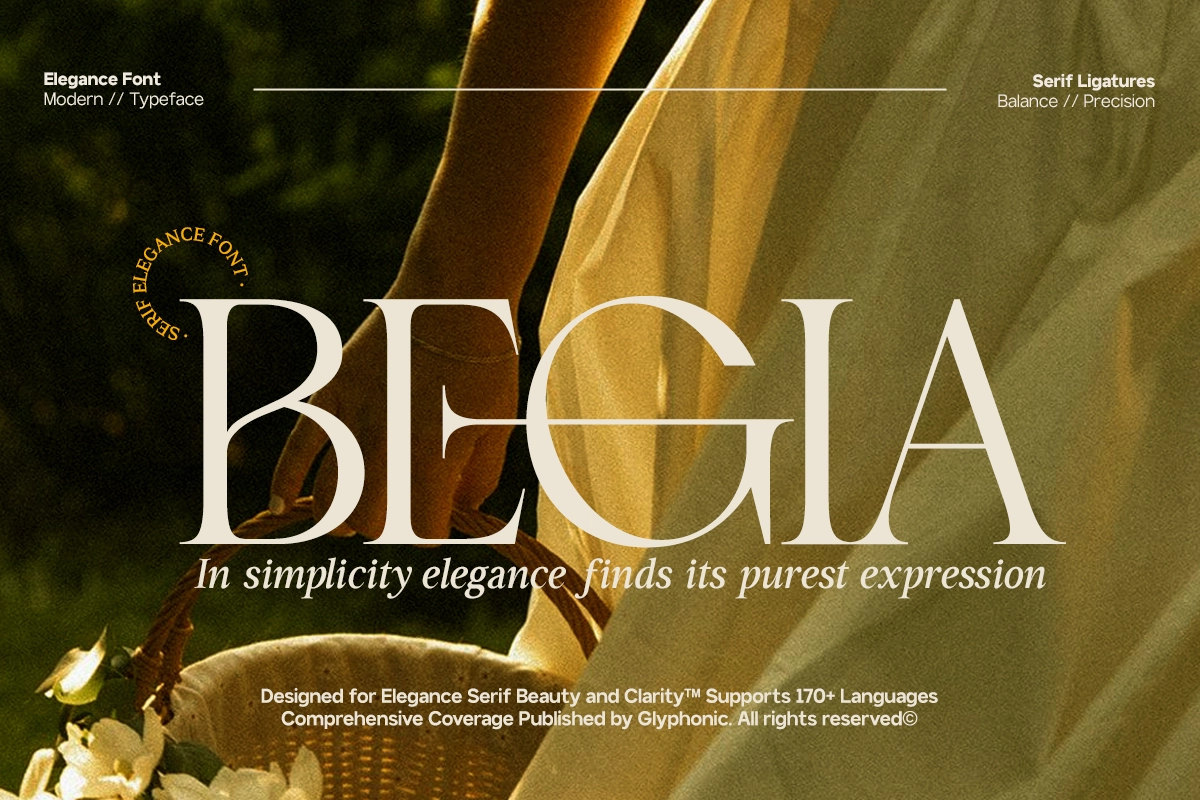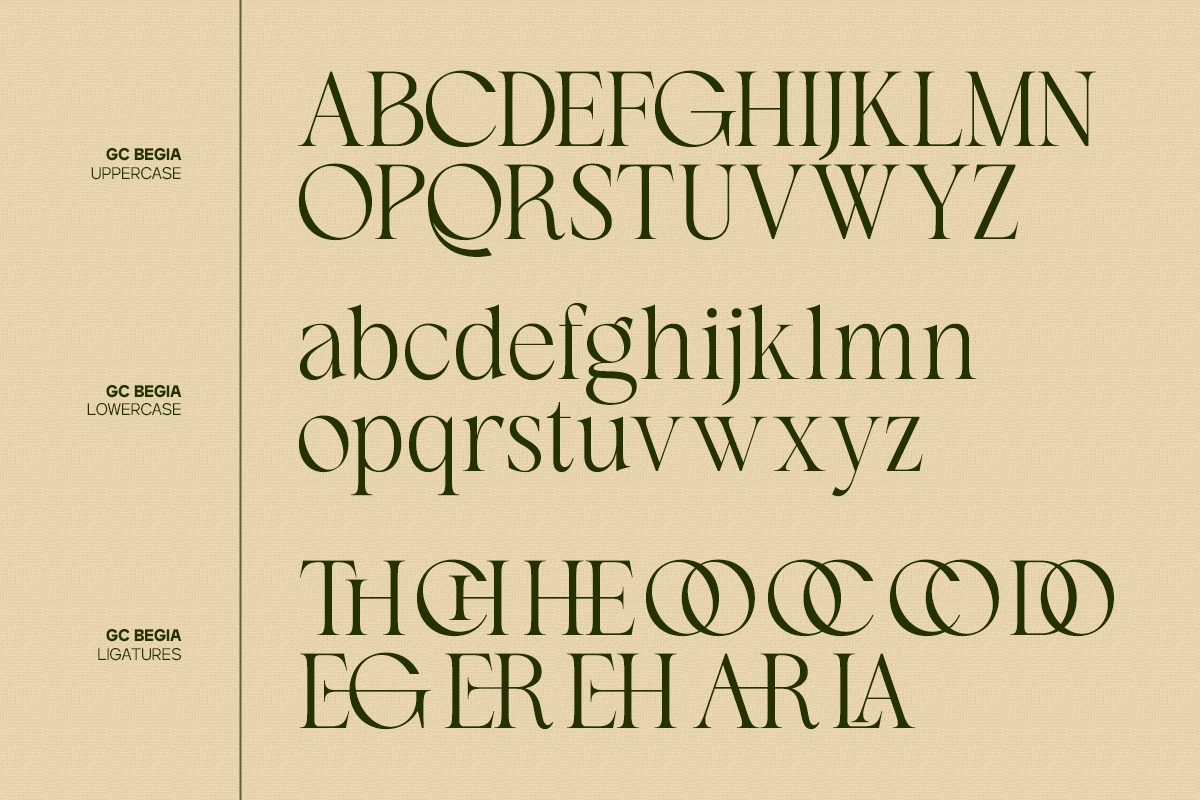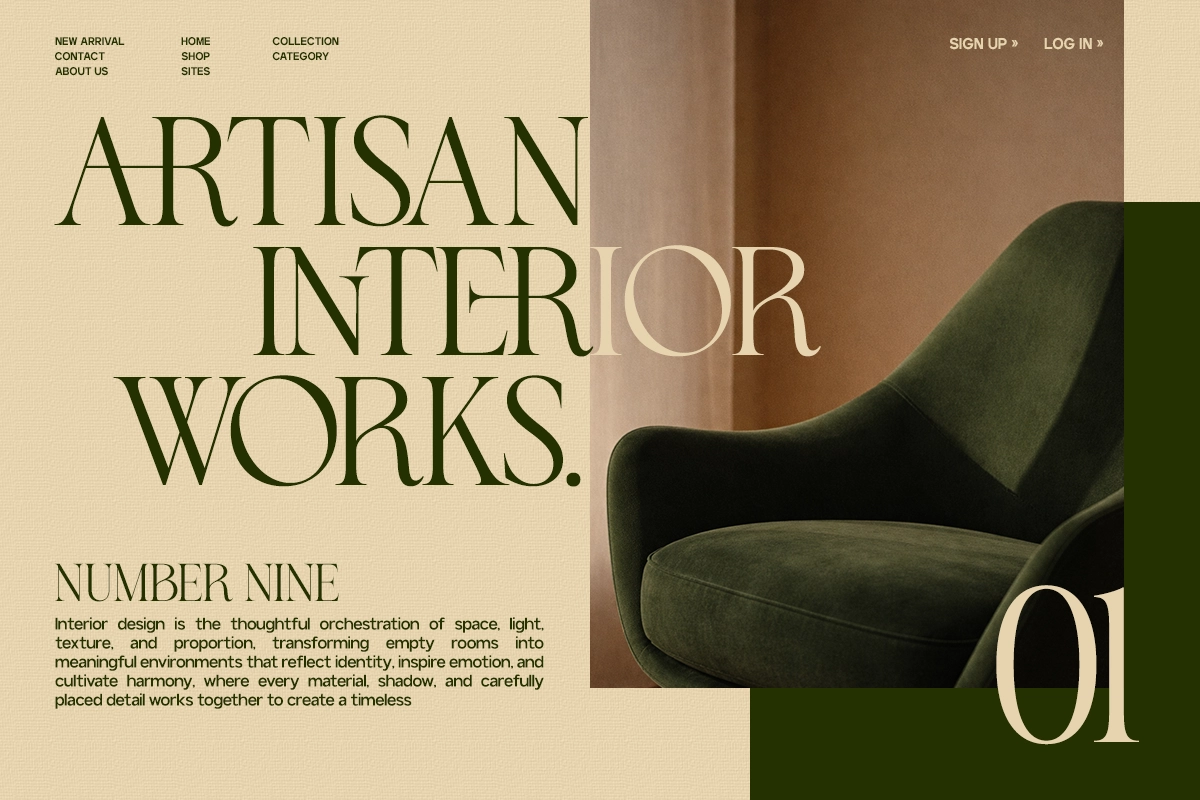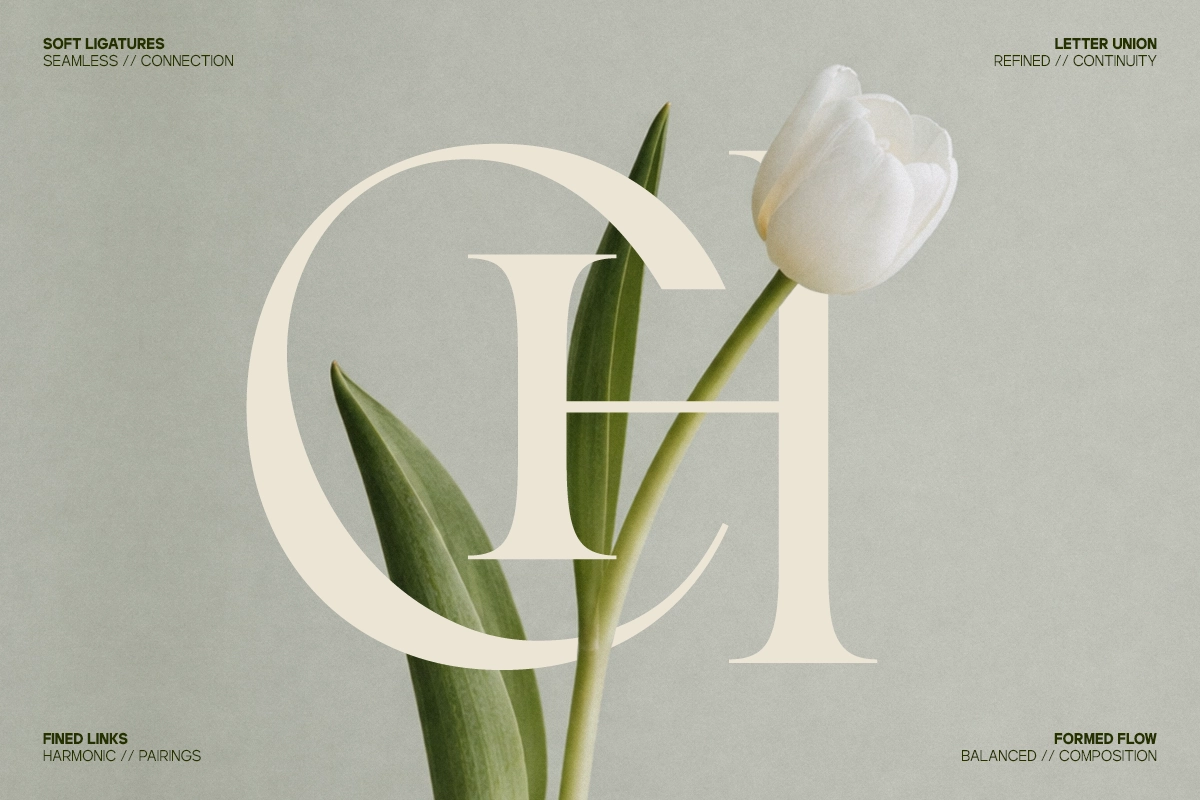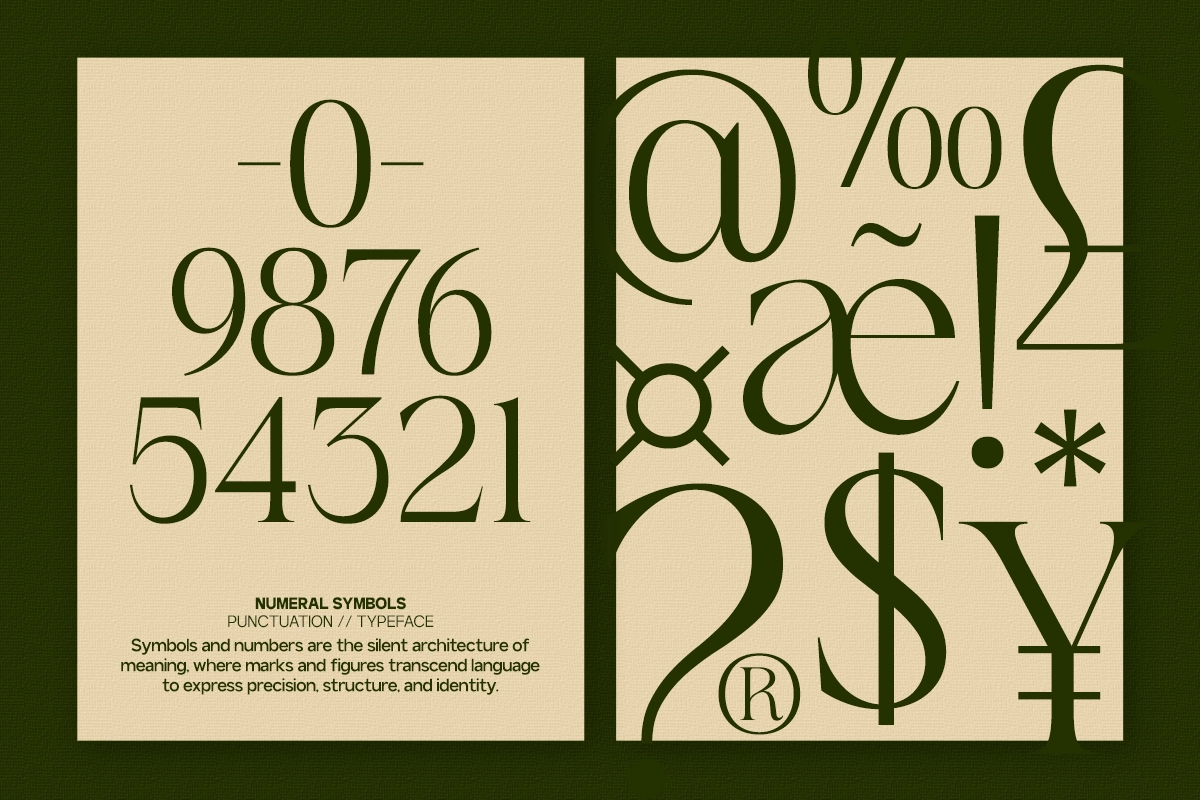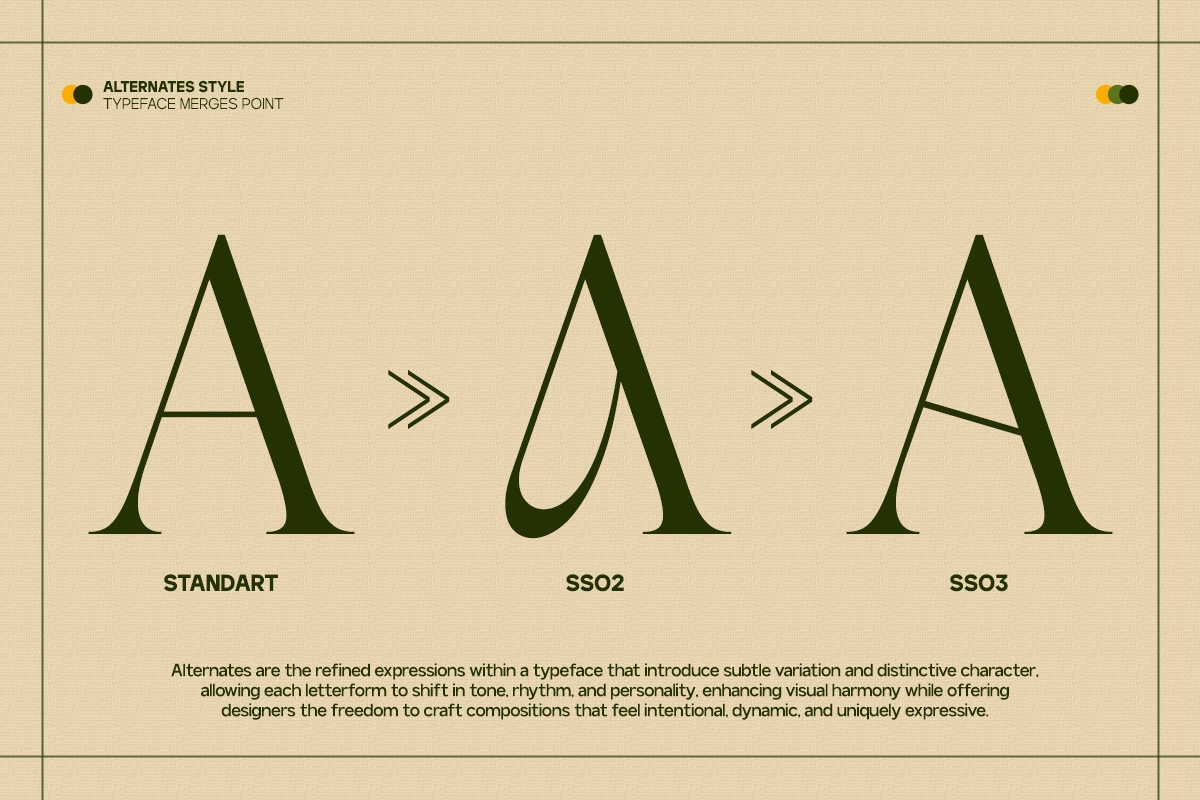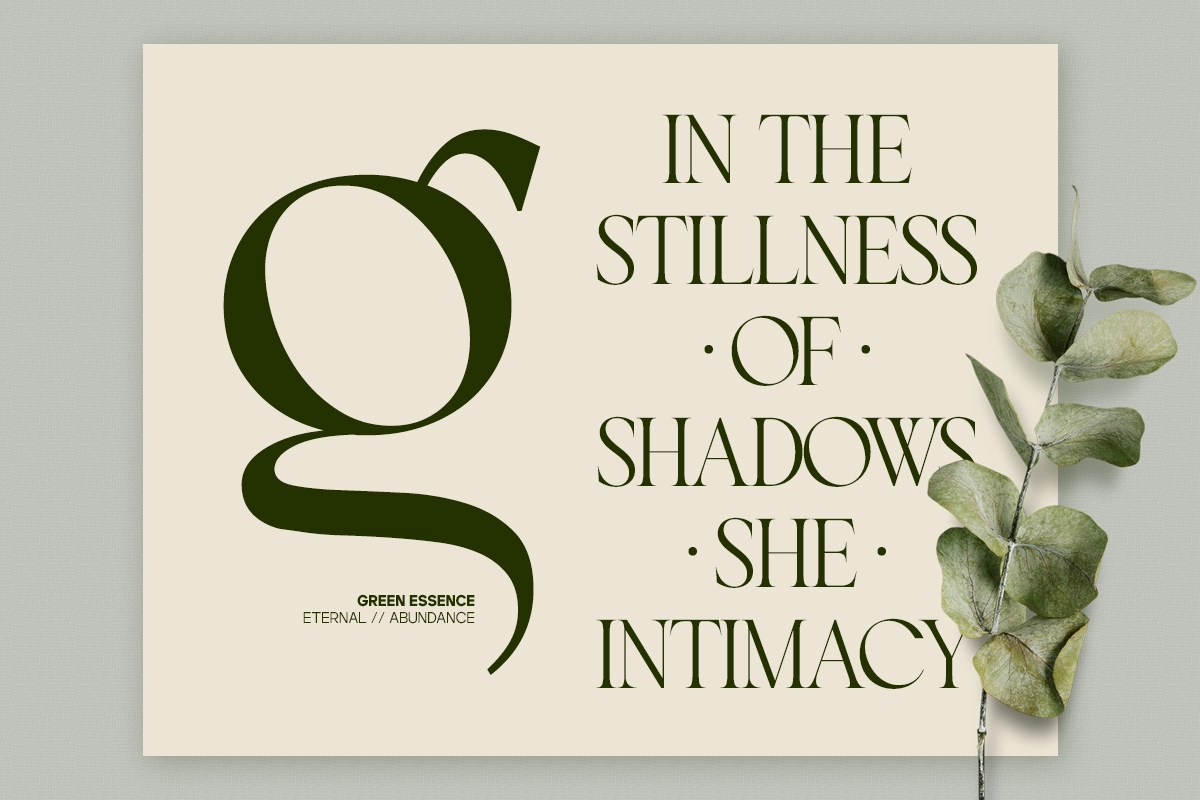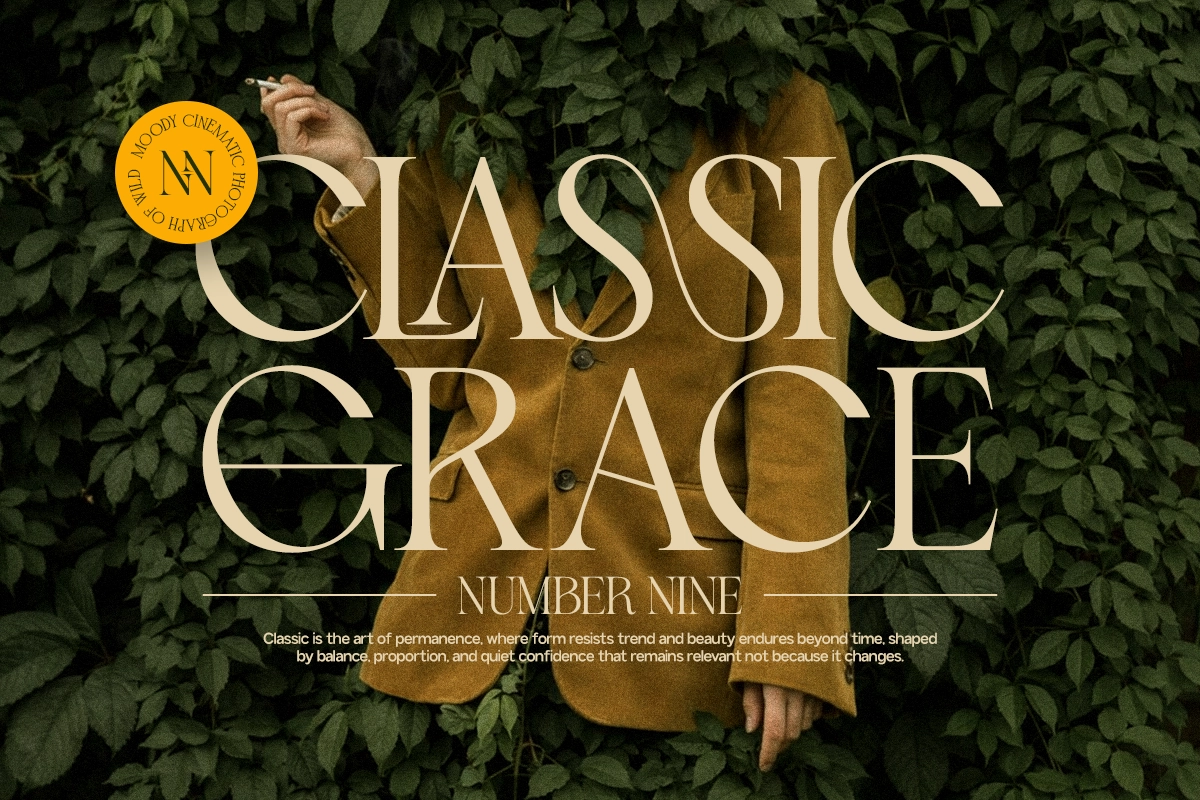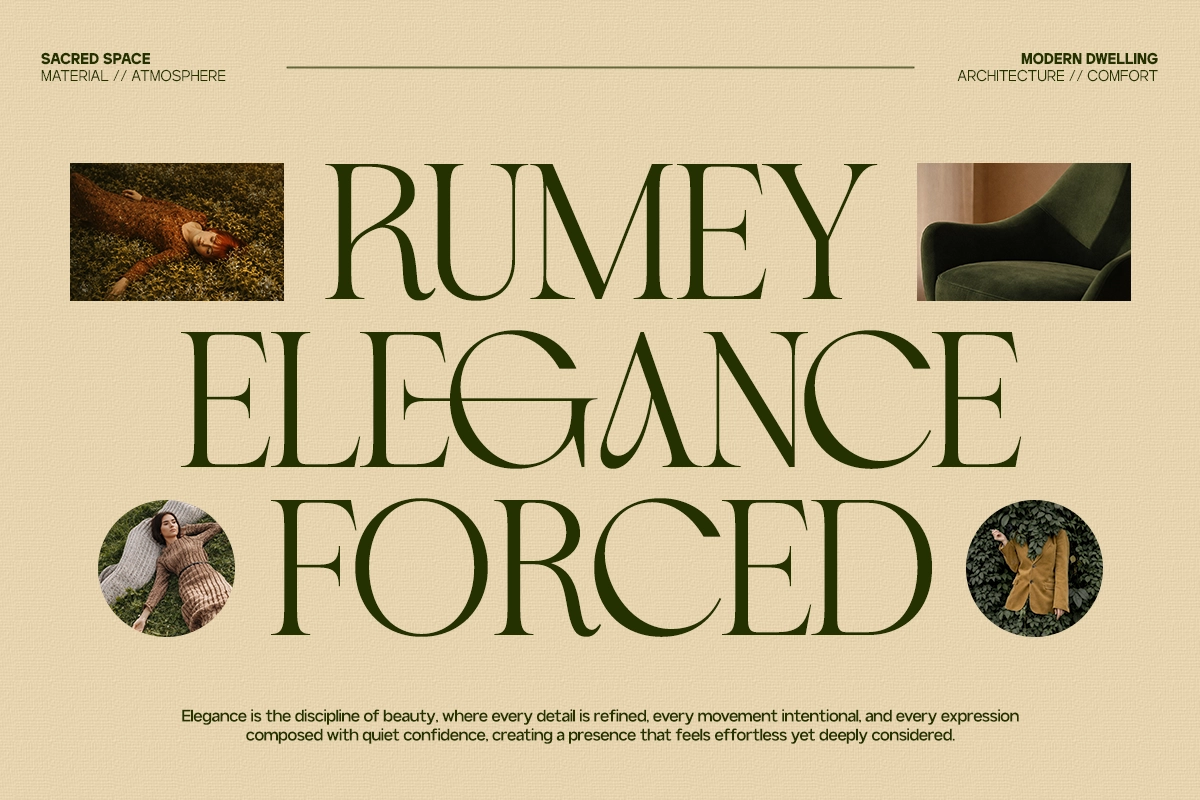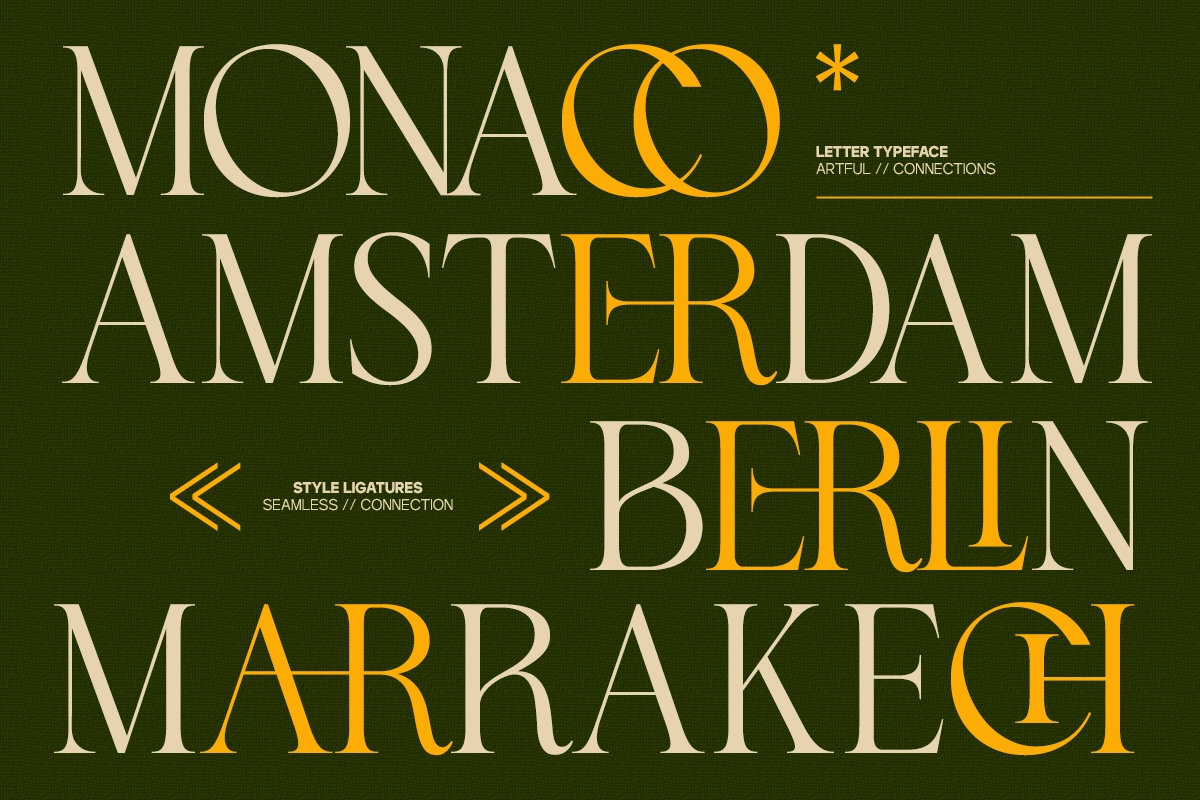
GC Begia - Modern Luxury Typeface
GC Begia
GC Begia - Modern Luxury Typeface is a refined font designed to express elegance, sophistication, and contemporary style. With graceful letterforms and balanced proportions, it delivers a polished and confident look across both print and digital designs.
Blending modern structure with a luxurious aesthetic, GC Begia is perfect for high-end branding, fashion editorials, beauty packaging, premium logos, and sophisticated visual identities. Its clean and elegant rhythm ensures readability while maintaining a distinctive, upscale presence.
- Uppercase & lowercase characters
- Modern luxury construction
- Multilingual support (170+ languages)